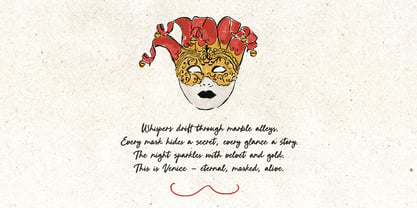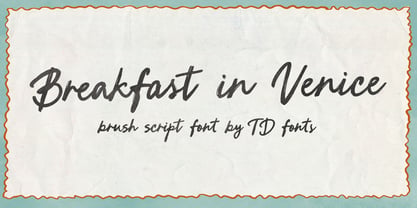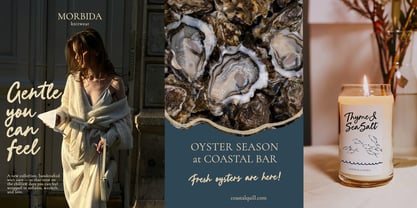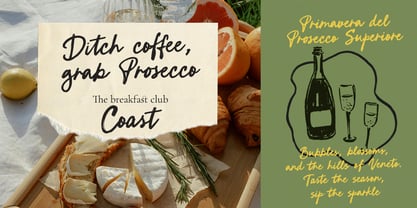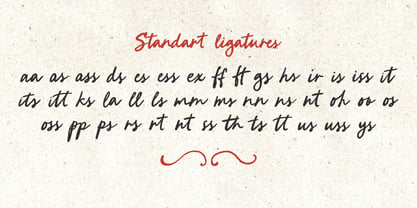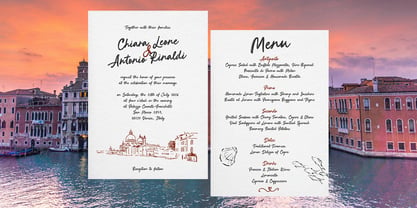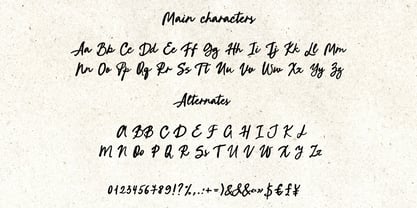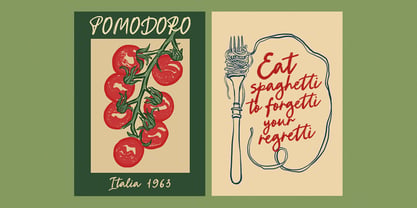
Breakfast In Venice
by TD fonts
The Breakfast In Venice Font Family was designed by and published by TD fonts. Breakfast In Venice contains 1 styles. More about this family
Breakfast in Venice is a bold, modern handwritten bold brush script font with multilingual support. Featuring a rich textured look and a wide set of alternates, it feels both organic and full of energy. Add a touch of imperfection and capture attention with Breakfast in Venice — a hand-drawn script with playful quirks and a vivid personality. Sketched by hand on paper, this font is a contemporary take on classic brush calligraphy. It carries a subtle retro charm while staying perfectly on-trend, bringing warmth, coziness, and a festive mood to your projects. With its extensive collection of stylistic alternates and ligatures, Breakfast in Venice allows you to craft expressive, varied lettering styles. This modern calligraphic font is perfect for branding, websites, greeting cards, birthday designs, invitations, whimsical prints, posters, wedding stationery, packaging, or any project that calls for a playful, imperfect, yet stylishly cozy vibe.